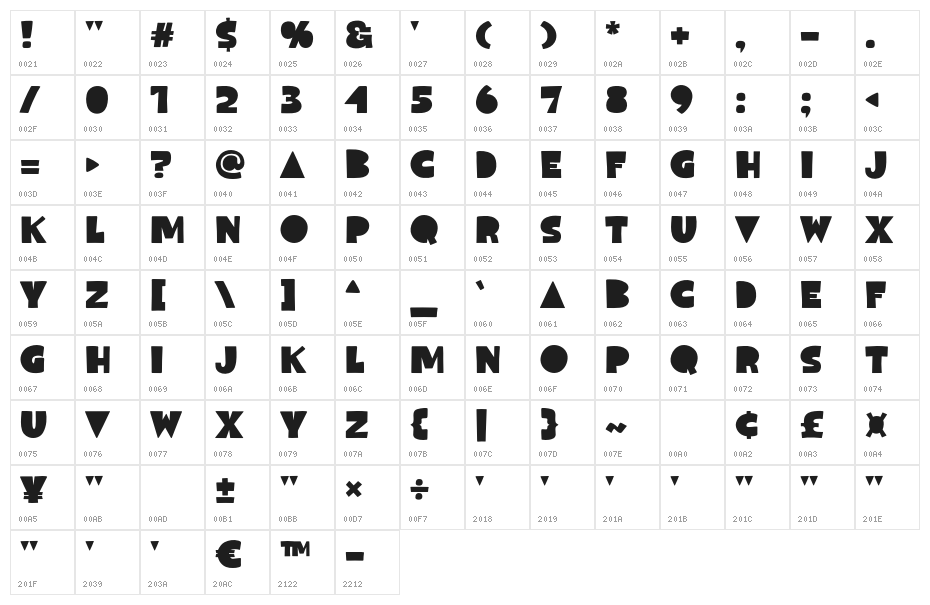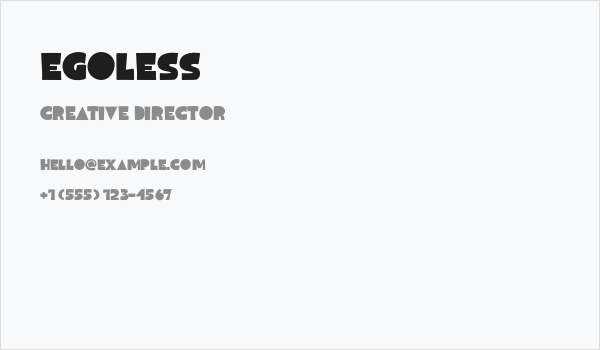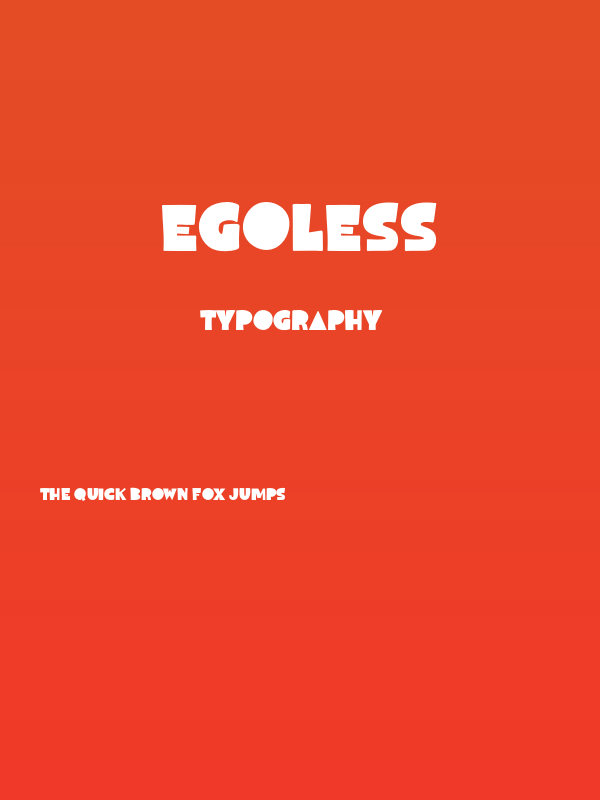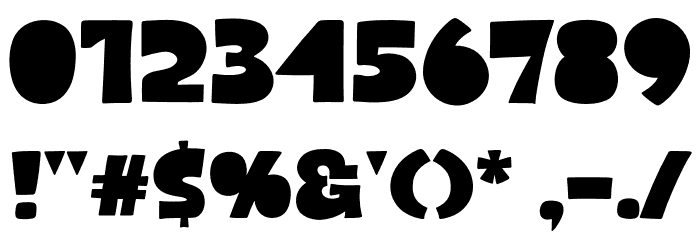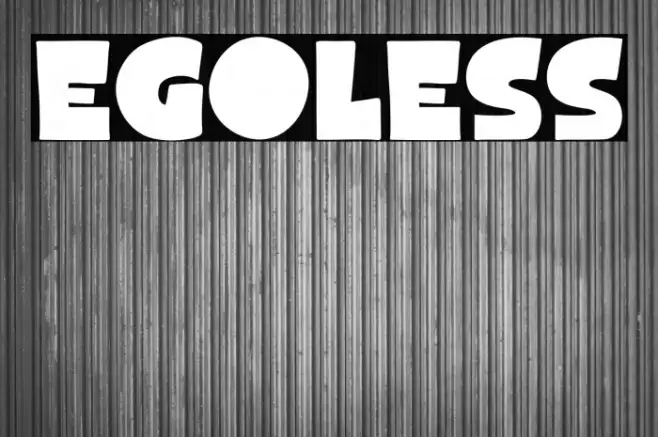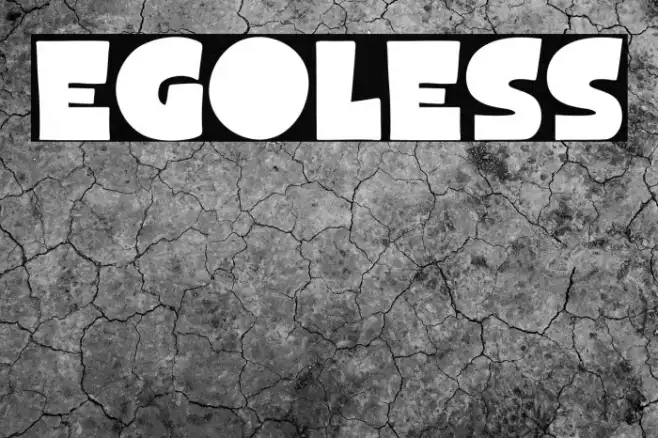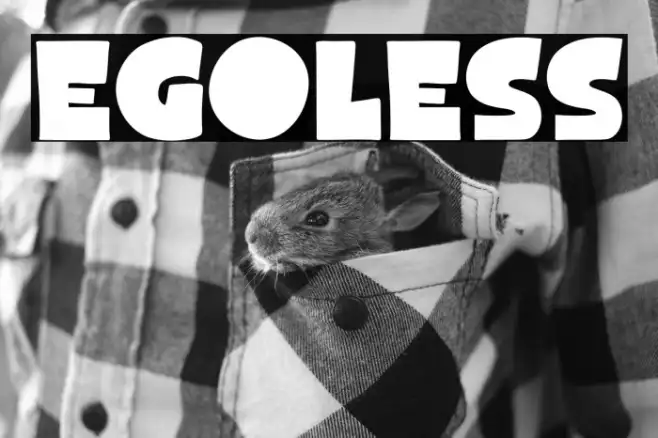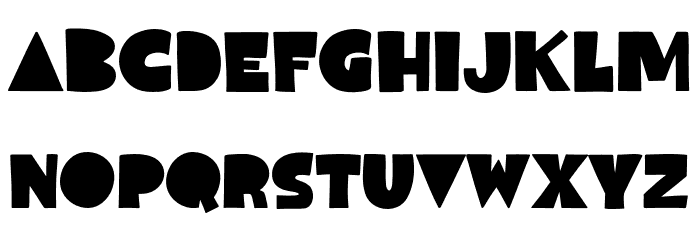
Egoless Font
Egoless Description
This font features a bold and playful design with exaggerated geometric shapes and a strong presence. The characters are crafted with a unique blend of sharp angles and rounded edges, creating a dynamic and eye-catching appearance. The uppercase letters are particularly striking, with a heavy weight that commands attention. The lowercase letters maintain the same boldness, ensuring consistency throughout. Numbers and special characters are equally bold, making them stand out in any design. The overall style is modern and artistic, suitable for projects that require a strong visual impact.
| Proposed Projects | Ideal for posters, branding, headlines, and any design requiring a bold statement. |